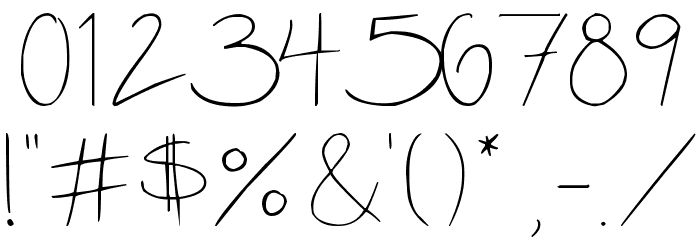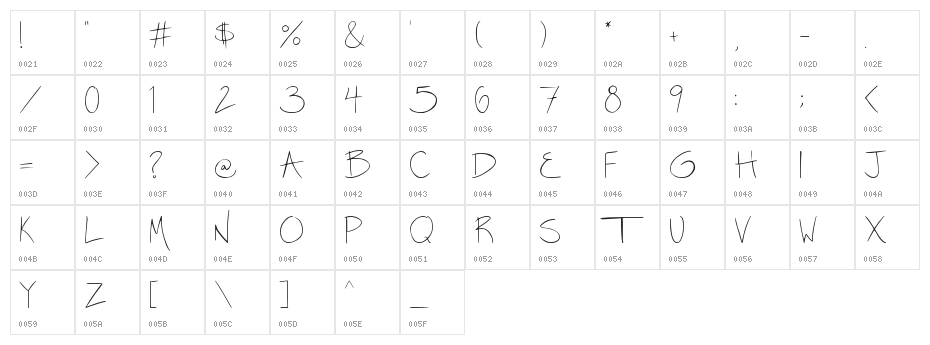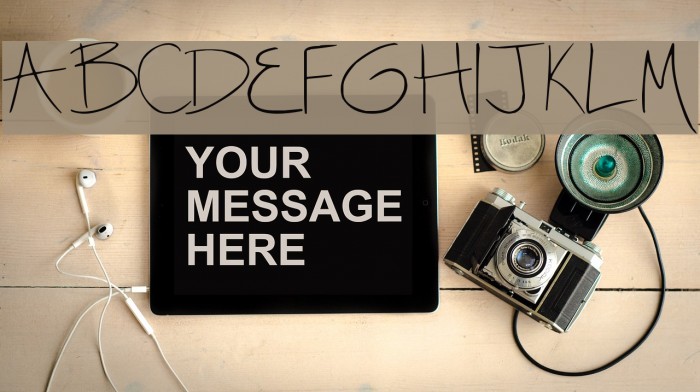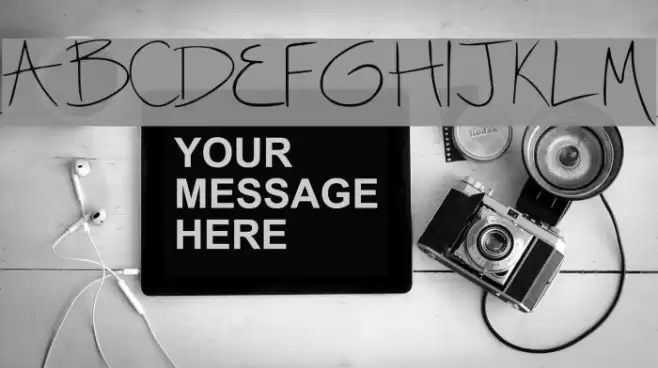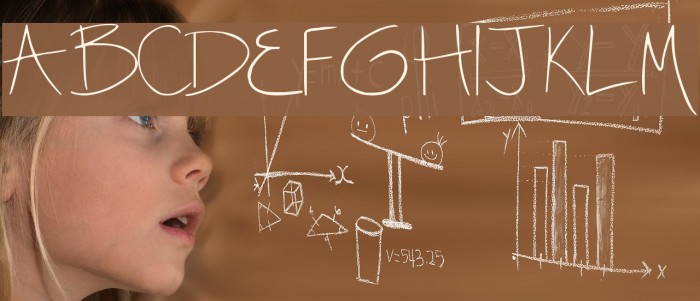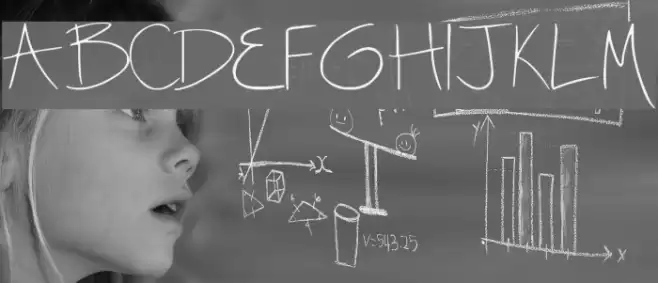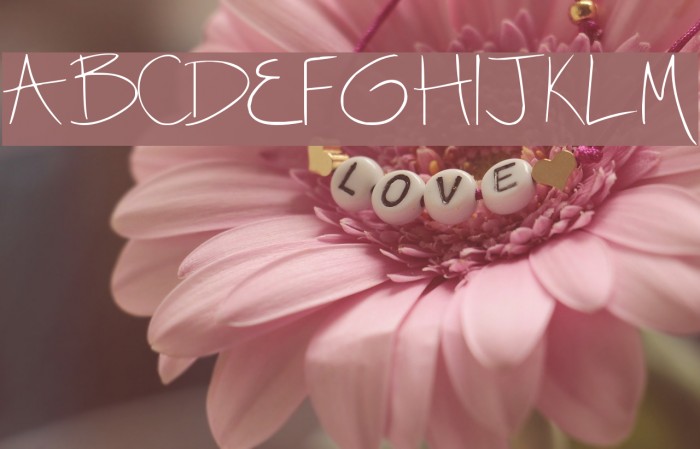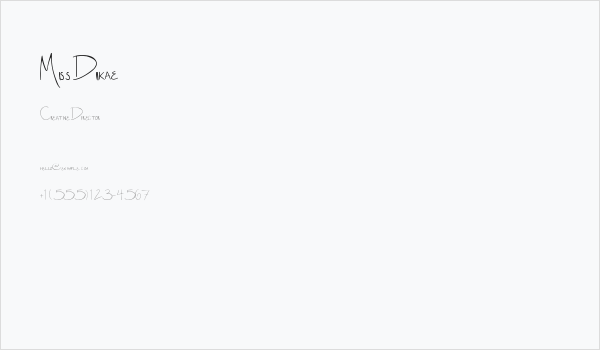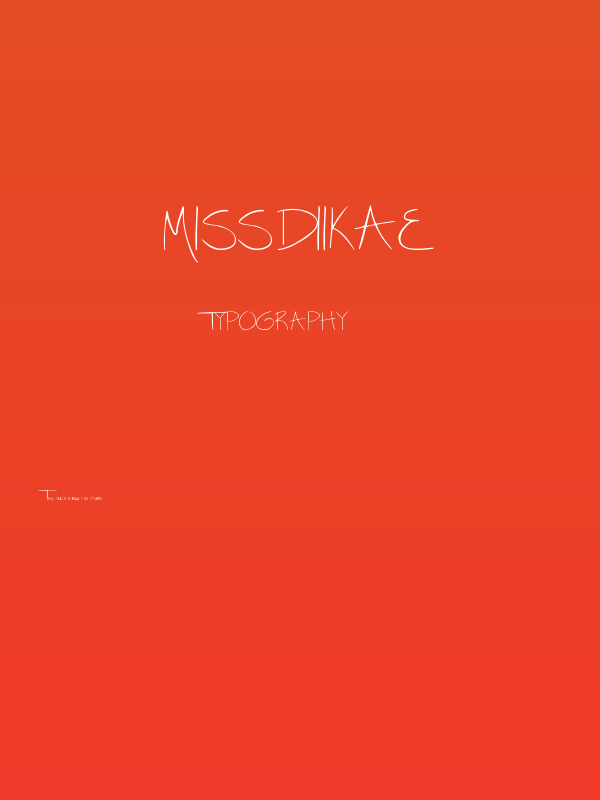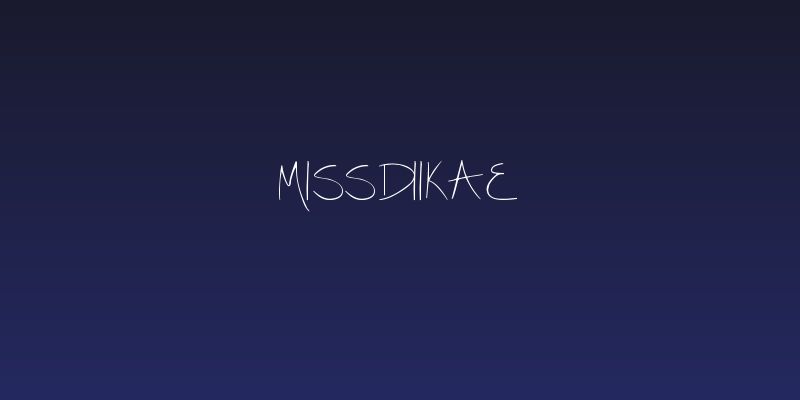
Miss Diikae Font
Miss Diikae Description
This font features a playful and whimsical style, characterized by its irregular, hand-drawn appearance. The letters are tall and narrow, with a slight tilt that adds a dynamic feel. The strokes are uneven, giving it a casual, informal look. The uppercase and lowercase letters maintain a consistent style, with the uppercase being more prominent. Numbers and special characters follow the same playful design, making them easily recognizable. This font is ideal for projects that require a personal touch or a fun, creative vibe.
Overall StylePlayful, Whimsical
Use CaseHeadlines, Creative projects, Informal settings
Proposed ProjectsGreat for children's books, greeting cards, playful branding, and creative posters.